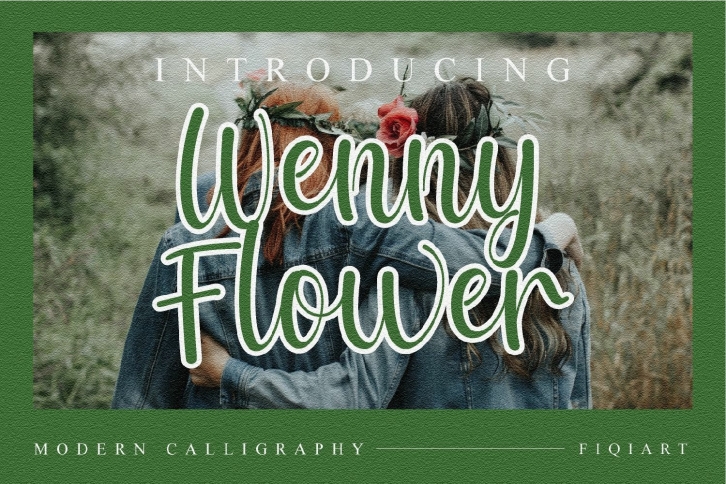
Wenny Flower is a gorgeous font that was realeased on May 14, 2021. The font can be used in many style contexts and design environments. Perfect for invitations, magazines, websites, logos, and more! It was designed by Fiqiart and the file size is 21.36 MB. Thanks for checking out this font!